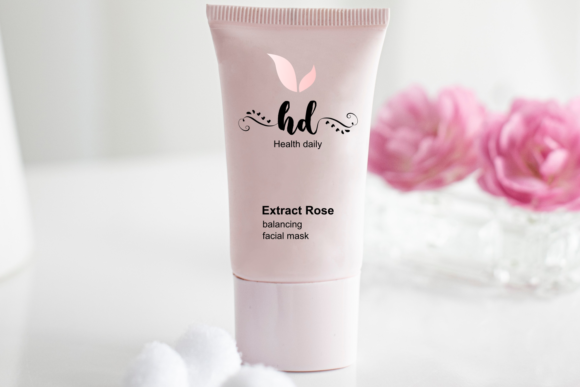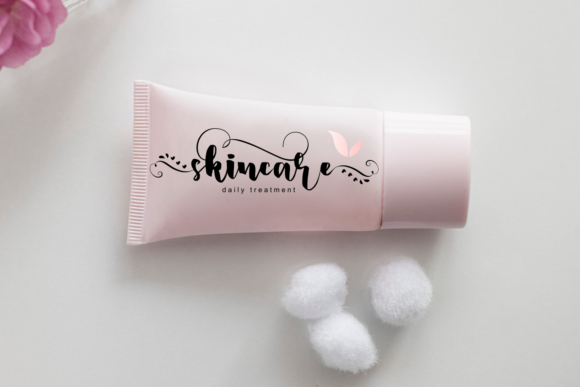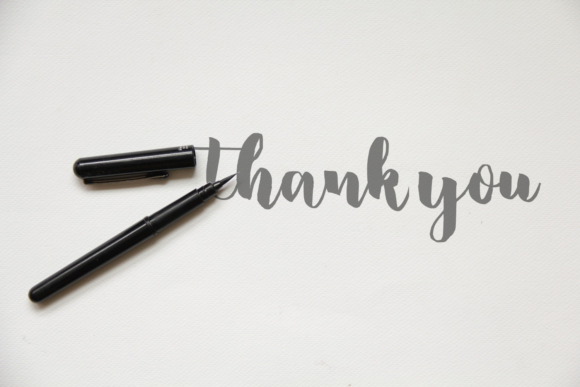
Skincare Font
About Skincare Font
Skincare is a chic, refined script font that emanates sophistication and elegance. Its stylish alternates and ligatures make this font the perfect match for any project.